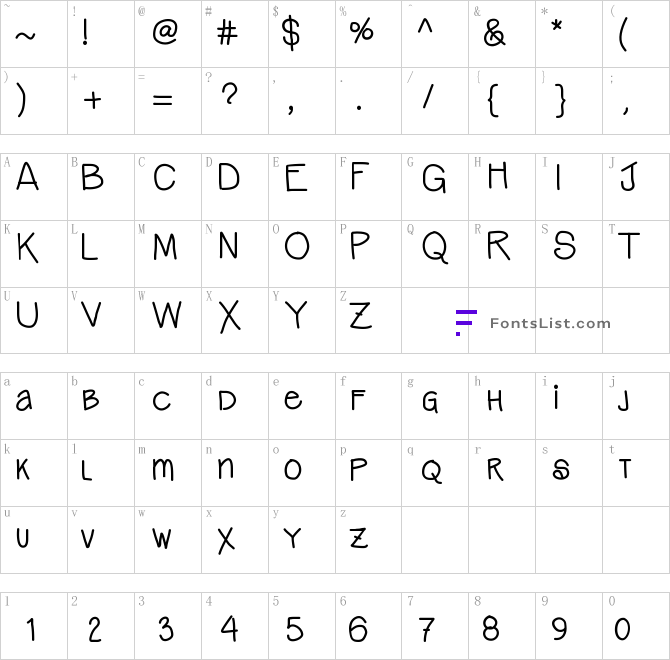
AniLindley.ttf is a very beautiful artistic font, AniLindley.ttf is widely used in the design and printing of various books and pictures,AniLindley.ttf has a strong visual impact,AniLindley.ttf is a commonly used font in newspapers, magazines and books, and is used in posters, e-commerce Poster design, store design, logo design, font design and other fields.AniLindley.